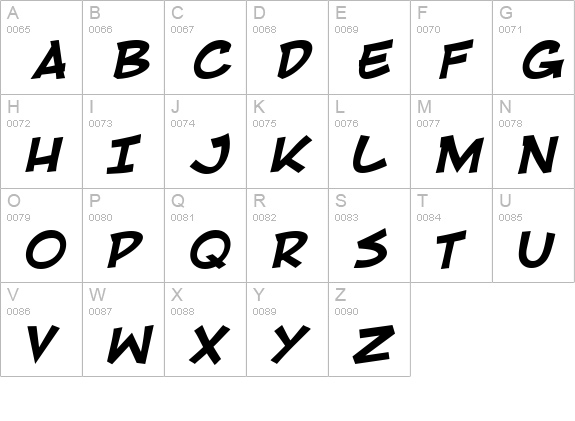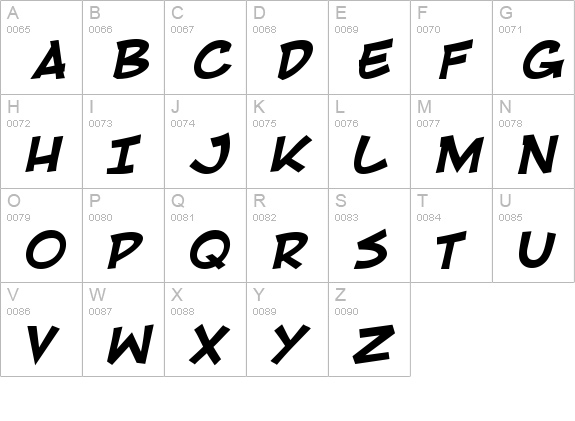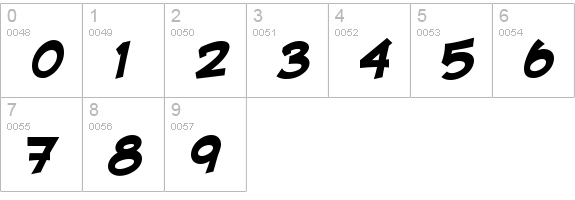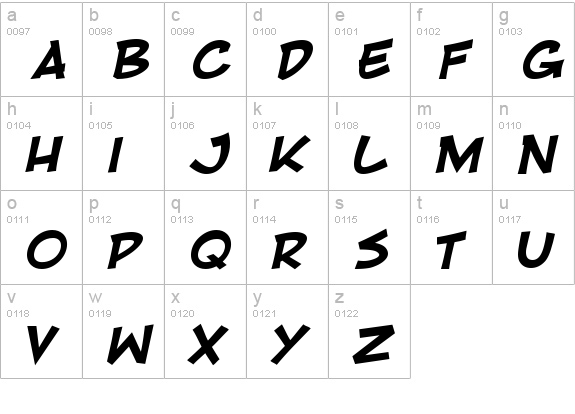
RivenShield Bold Font Details
RivenShield Bold is a strong, high-contrast variant in the RivenShield typeface family \xE2\x80\x94 well suited to headlines, attention-grabbing titles, and strong calls-to-action.
RivenShield Bold font exudes strength and sophistication with its bold and commanding presence. Its sharp lines and intricate details make it perfect for projects that require a touch of elegance and power. This versatile font is ideal for headlines, logos, branding, and more. The best part? RivenShield Bold font is available for free download at FontsMarket.com, allowing you to effortlessly enhance your designs without breaking the bank. Whether you're working on a professional project or a personal creative endeavor, this font is sure to make a lasting impression. So why wait? Download RivenShield Bold today and take your designs to the next level.